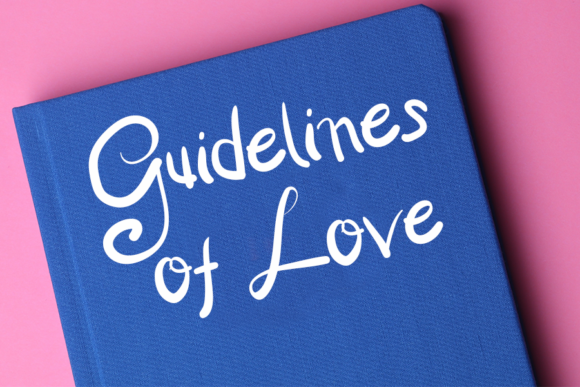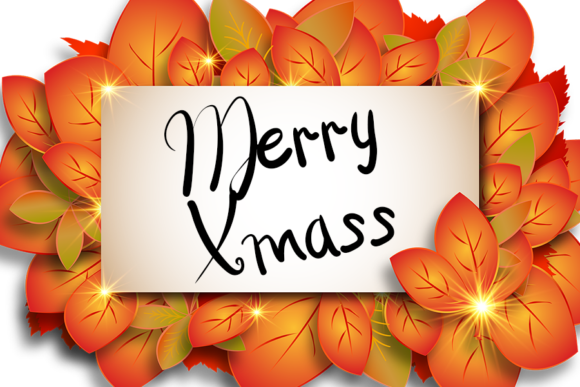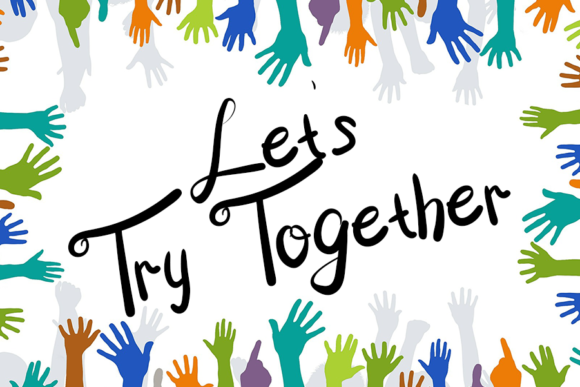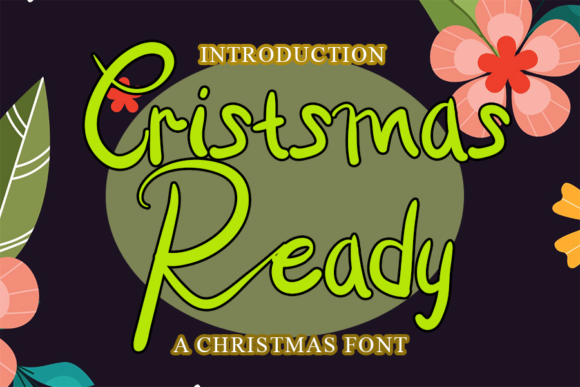
Introducing Christmas Ready Font: The Perfect Addition to Your Holiday Designs
As the holiday season approaches, designers and crafters are on the lookout for the perfect font to make their Christmas designs shine. Look no further than Christmas Ready Font, a delicate and elegant handwritten font that’s sure to capture the magic of the season. In this article, we’ll dive into the features and benefits of Christmas Ready Font, and explore how you can use it to create spectacular designs that will leave a lasting impression.
A Delicate and Elegant Handwritten Font
Christmas Ready Font is a beautifully crafted handwritten font that’s perfect for adding a touch of elegance and sophistication to your holiday designs. Its distinct and well-rounded letters make it a masterpiece, with a unique character that’s sure to set your designs apart from the rest. Whether you’re creating Christmas cards, holiday gift tags, or festive social media graphics, Christmas Ready Font is the perfect choice.
Incredibly Versatile Style
One of the standout features of Christmas Ready Font is its incredibly versatile style. This font can be used in a wide range of design applications, from formal and elegant to playful and whimsical. Whether you’re creating designs for a holiday market, a festive party, or a cozy night in, Christmas Ready Font can help you achieve the perfect look and feel.
Christmas Ready Font is a must-have for designers and crafters who want to create stunning holiday designs that will impress their clients or friends. With its delicate and elegant style, this font is perfect for:
- Creating custom Christmas cards and gift tags
- Designing festive social media graphics and holiday promotions
- Adding a touch of elegance to holiday craft projects, such as scrapbooking and paper crafting
- Creating beautiful holiday-themed invitations and party decorations
Why Choose Christmas Ready Font?
So why choose Christmas Ready Font over other holiday fonts? Here are just a few reasons:
- Unique and distinctive style: Christmas Ready Font has a unique and distinctive style that’s sure to set your designs apart from the rest.
- Elegant and sophisticated: This font is perfect for creating elegant and sophisticated holiday designs that will impress your clients or friends.
- Versatile: Christmas Ready Font can be used in a wide range of design applications, from formal and elegant to playful and whimsical.
Tips for Using Christmas Ready Font
Here are a few tips for using Christmas Ready Font in your holiday designs:
- Pair it with complementary fonts: Christmas Ready Font looks great when paired with complementary fonts, such as bold and playful fonts.
- Experiment with different colors: This font looks great in a wide range of colors, from traditional holiday colors like red and green to more modern colors like metallic silver and gold.
- Add festive graphics and illustrations: Christmas Ready Font looks great when paired with festive graphics and illustrations, such as holly, snowflakes, and reindeer.
Christmas Ready Font is a beautiful and elegant handwritten font that’s perfect for adding a touch of magic to your holiday designs. With its unique and distinctive style, incredibly versatile style, and ease of use, this font is a must-have for designers and crafters who want to create stunning holiday designs. So why wait? Download Christmas Ready Font today and start creating spectacular holiday designs that will leave a lasting impression!